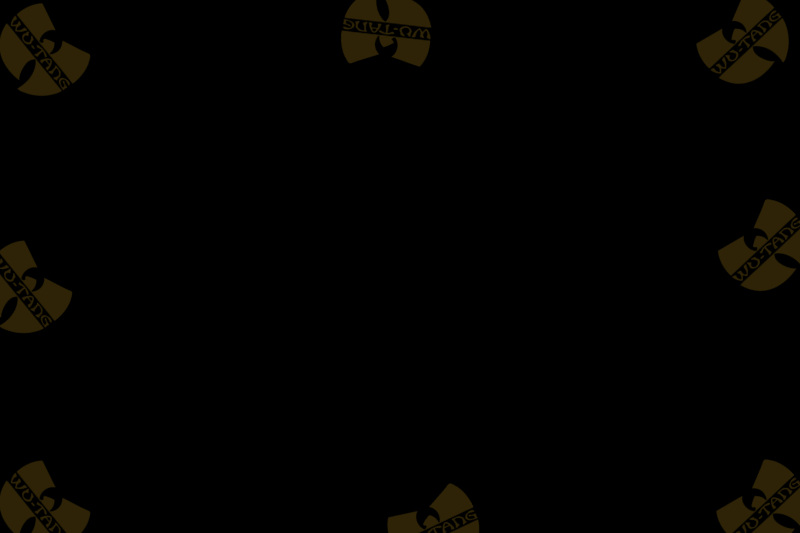
Wu Tang Font Generator
Generate legendary hip-hop text with our free Wu-Tang font generator. Represent the Clan's iconic aesthetic β€” free to download in seconds.
About the Wu Tang Font Generator
The Wu-Tang Clan is one of hip-hop's most influential groups, and their typography β€” the bold, angular Wu-Tang logo lettering β€” is just as iconic as their music. Steeped in East Coast rap culture and martial arts mysticism, the Wu-Tang font style commands respect and recognition in any design context.
• Hip-hop fan art and tribute graphics
• Rap playlist covers and music artwork
• Streetwear and urban fashion brand mockups
• Gaming profile names and clan banners
• Social media content for hip-hop culture accounts